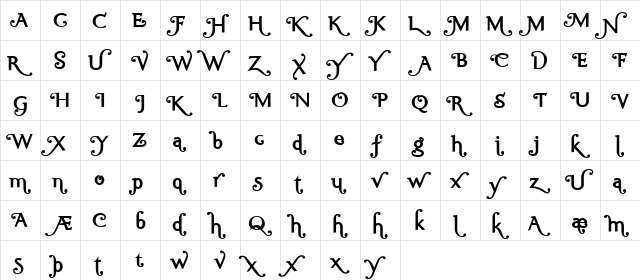
Ela Swashes Bold
Design Context for Ela Swashes Typeface
Ela Swashes brings a calligraphic fluidity to the page — its connecting strokes and expressive curves give it an unmistakably human quality. The heavy weight commands attention and anchors typographic hierarchies.
Font Pairing: Combine Ela Swashes with a simple geometric sans for maximum contrast — the tension between flowing curves and clean structure is a classic typographic pairing.
Pro Tip: Use Ela Swashes for short runs of text — names, titles, or taglines. Extended body copy in script faces tires the eye quickly.